Handwritten font is a set of Vietnameseized fonts specialized for use in graphic designs, invitation card designs, greeting cards or some software applications related to advertising, image editing with the font set. including many diverse and unique Vietnameseized fonts, handwritten fonts are quite helpful for users in their work, bringing many benefits to using fonts. Here are demo images of some beautiful handwritten fonts for you. Readers can also Download all types of Vietnamese handwritten fonts by following the link we just introduced above.
Claudey - Handwritten Font
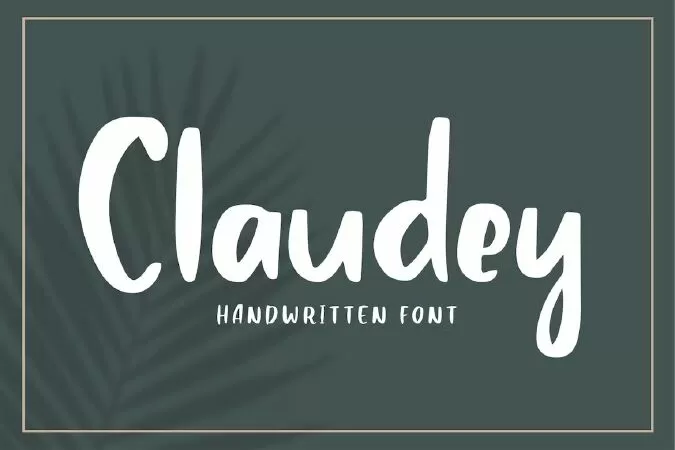
Claudey - Handwritten Font is an handwritten script font based on the expression of real handwriting, lets you transform type into an exciting and beautiful piece of work. The irregular, hand-lettered look adds a real human touch to things and comes along with a lot of loving details. Combine all font-styles the way you want, add some ornamental swashes or banners and even a single word becomes magnificent.
Claudey - Handwritten Font has lots of alternates that gives you possibility to build your text almost like handwriting with all the charming imperfections and variations that a real handwriting has. Bravely will work perfectly for fashion, e-commerce brands, trend blogs, wedding boutiques or any business that wants to appear upscale and chic.
Shootballs - Handwritten Font
Shootballs is an unique handwritten font. It can be used for various purposes such as logos, wedding invitations, headings, t-shirts, letterhead, signage, labels, news, posters, badges and so much more.
Destomed Handwritten Font
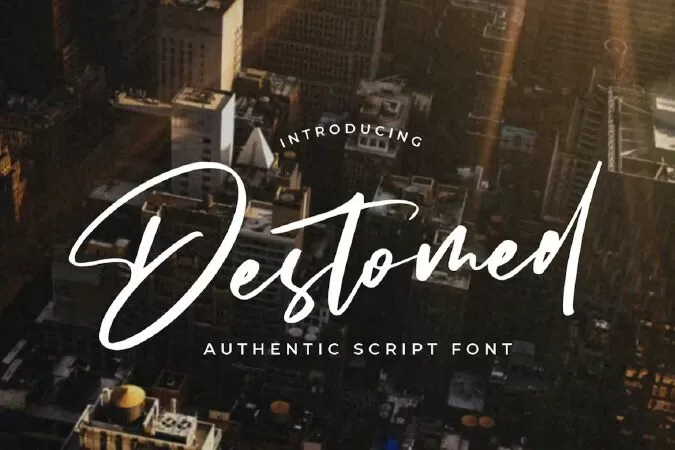
Destomed made with simple and elegant hand writing will create stunning signature style.
Destomed is perfect for branding projects, logo, wedding designs, social media posts, advertisements, product packaging, product designs, label, photography, watermark, invitation, stationery and any projects that need handwriting taste.
Jacks - Handwritten Font
Jacks is a Handwritten Script Font that's perfect for Headline, Thumbnail or Merchandise. This font specially crafted for your design projects such as banner, poster, flyer, website design, product packaging, merchandise, pillow print and so many more with easy to use but standing out results are so amazing.
Enjoy to Design any your needs with standing out, unique, and authentic feels.
Zoothopia - Handwritten Font
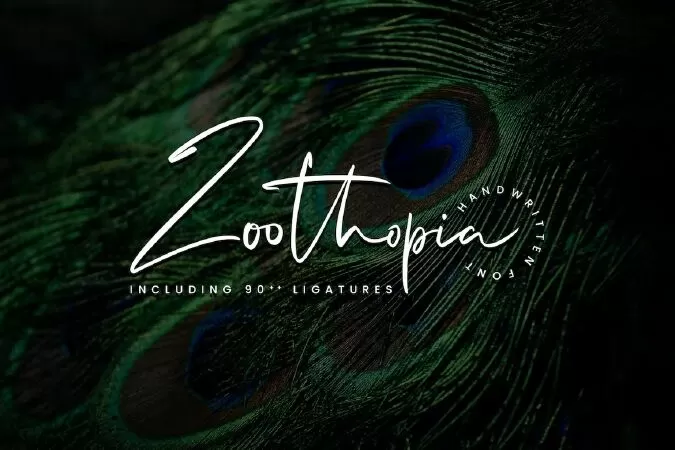
ntroducing Zoothopia. It is perfect for logo/branding projects, large header text and product packaging.
Sign Style Features :
- 90+ Ligatures
- Alternates